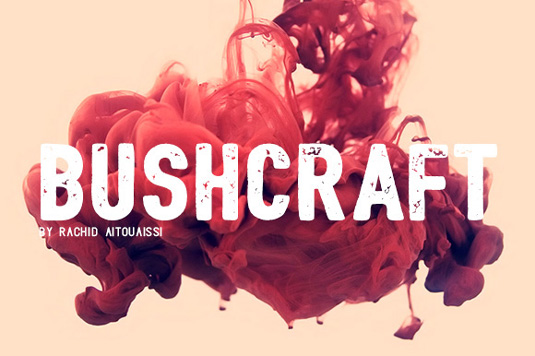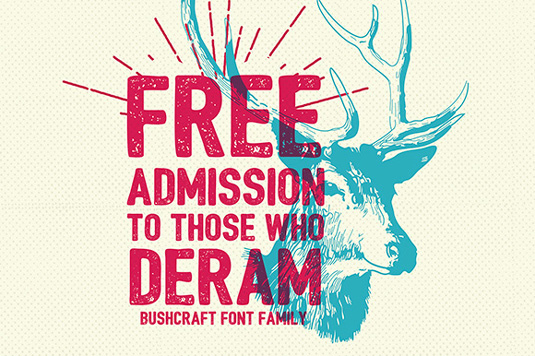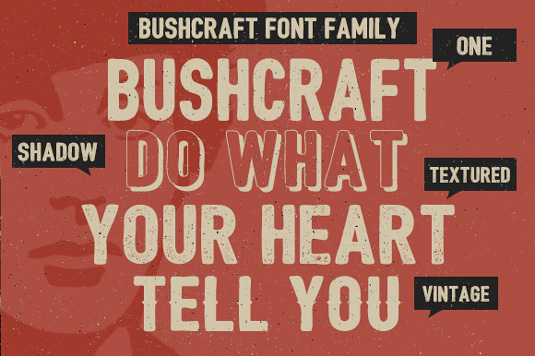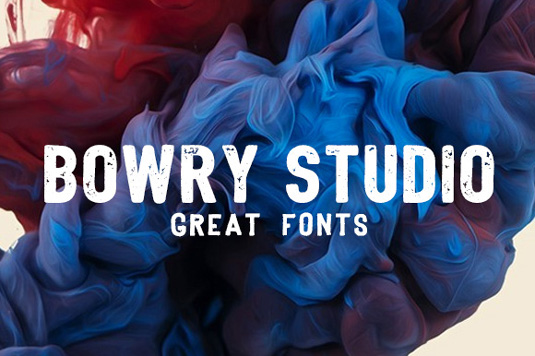
Font of the day: Bushcraft
Every day we showcase the best fonts on the web. Today it's Bushcraft by Rachid Aitouaissi, which is totally free to download.
Bushcraft by Rachid Aitouaissi
Today's typeface of choice is this textured vintage design Bushcraft by designer Rachid Aitouaissi of Bowery Studio Design. With six different styles available, Bushcraft is great for creating eye-catching headlines, posters and much more.